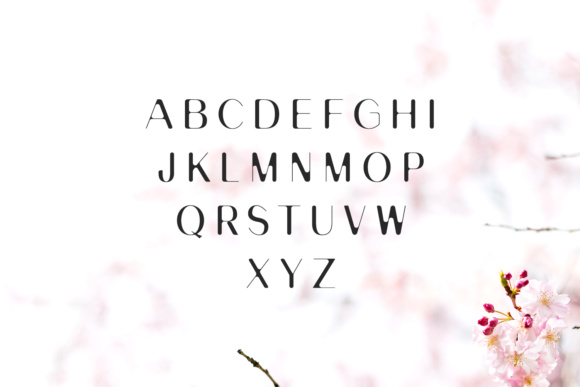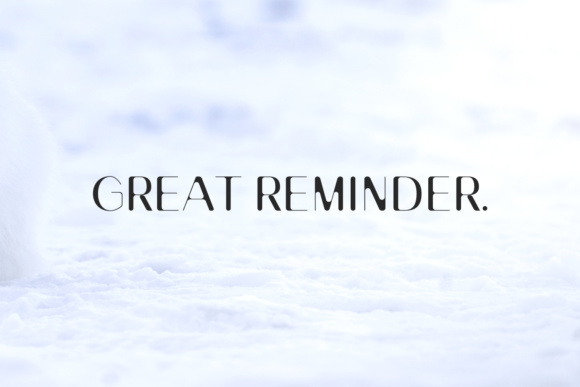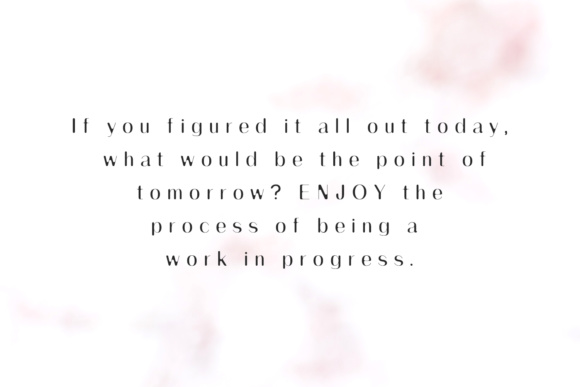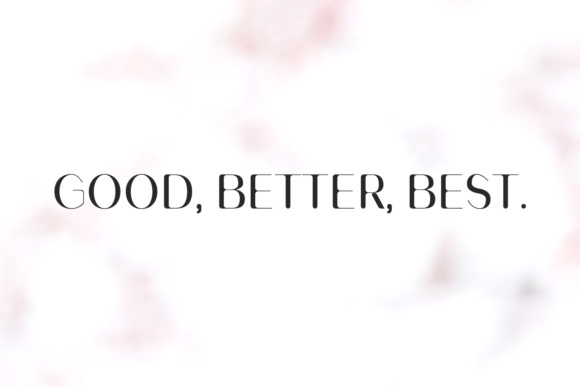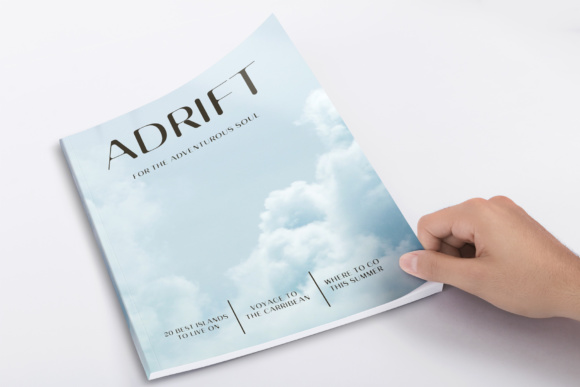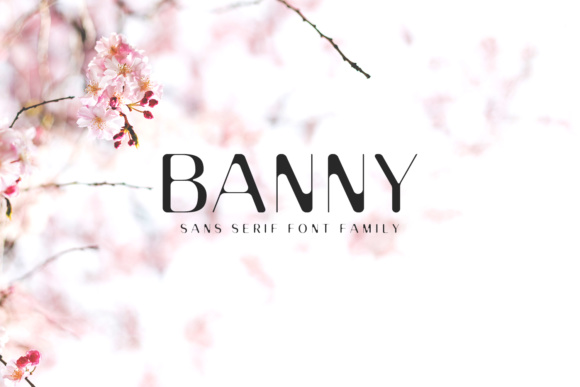
Banny Sans Serif Family Font: Elevate Your Designs with a Touch of Vintage Elegance
In the world of typography, a well-crafted font can make all the difference in elevating your design from ordinary to extraordinary. Introducing the Banny Sans Serif Family Font, a clean and beautiful sans serif font that embodies the essence of vintage printing with its smooth edges. This versatile typeface is perfect for designers and crafters looking to add a touch of sophistication and elegance to their projects.
The Perfect Font for Vintage-Inspired Designs
Banny Sans Serif Typeface is specifically designed to reproduce the classic look of vintage printing, making it an ideal choice for a wide range of design applications. Whether you’re working on vintage logo designs, texts, presentations, posters, magazines, notices, headers, titles, name cards, or web layouts, this font is sure to impress. Its clean and smooth edges give it a timeless appeal that will make your designs stand out from the crowd.
Key Features of Banny Font
The Banny Font family comes with an impressive set of features that make it a valuable addition to any designer’s toolkit. Some of its key features include:
- Uppercase Multilingual Letters: The Banny Font family includes a comprehensive set of uppercase letters that cater to various languages, making it perfect for international designs.
- Lowercase Multilingual Letters: The font also features a wide range of lowercase letters, ensuring that your designs have a consistent and harmonious look.
- Numbers & Punctuation: The Banny Font family includes a complete set of numbers and punctuation marks, providing you with everything you need to create professional-looking designs.
- Non-English Characters (Latin Supplement + Latin Extended A): With support for non-English characters, you can use the Banny Font to create designs that cater to diverse languages and cultures.
Applications of Banny Sans Serif Font
The Banny Sans Serif Font is an incredibly versatile typeface that can be used in a wide range of design applications, including:
- Vintage Logo Designs: Create stunning vintage-inspired logos that exude elegance and sophistication.
- Magazines and Posters: Use the Banny Font to add a touch of classic charm to your magazine layouts and poster designs.
- Web Layouts and Invitations: The font’s clean and smooth edges make it perfect for web layouts, invitations, and other digital designs.
- Branding and Headers: Use the Banny Font to create professional-looking brand identities, headers, and titles that make a lasting impression.
Why Choose Banny Sans Serif Font?
With so many fonts available, why choose the Banny Sans Serif Font? Here are just a few reasons why this typeface stands out from the rest:
- Unique Vintage Look: The Banny Font’s smooth edges and classic design give it a unique vintage look that’s hard to find in other fonts.
- Highly Versatile: The font’s wide range of characters and features make it suitable for a variety of design applications.
- Easy to Read: The Banny Font’s clean and simple design makes it easy to read, even at small sizes.
In conclusion, the Banny Sans Serif Family Font is an exceptional typeface that offers a perfect blend of vintage elegance and modern versatility. With its smooth edges, comprehensive character set, and wide range of features, this font is sure to become a valuable addition to any designer’s toolkit. Whether you’re working on vintage-inspired designs, branding, or web layouts, the Banny Sans Serif Font is the perfect choice for creating stunning and professional-looking designs.